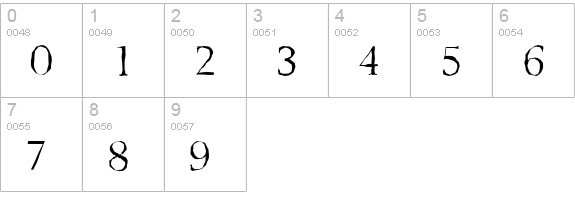
BelfastAntique-Light-Regular Font Details
BelfastAntique-Light-Regular is a refined, elegant variant in the BelfastAntique typeface family \xE2\x80\x94 well suited to elegant body text, refined sub-headings, and luxury branding.
BelfastAntique-Light-Regular is a timeless and elegant font that exudes a sense of vintage charm and sophistication. Its delicate serifs and refined details make it perfect for projects that require a touch of old-world elegance. This font is versatile and can be used for a wide range of design projects, from invitations and branding to packaging and signage. The graceful curves and subtle contrast of BelfastAntique-Light-Regular create a sense of classic beauty that is sure to elevate any design. Whether you're working on a wedding invitation or a logo design, this font will add a touch of refinement and sophistication. Best of all, BelfastAntique-Light-Regular is available for free download at FontsMarket.com. You can easily access this exquisite font and bring a touch of antique allure to your projects without any cost. Don't miss out on this opportunity to enhance your designs with the timeless beauty of BelfastAntique-Light-Regular. Download it now and let your creativity shine!